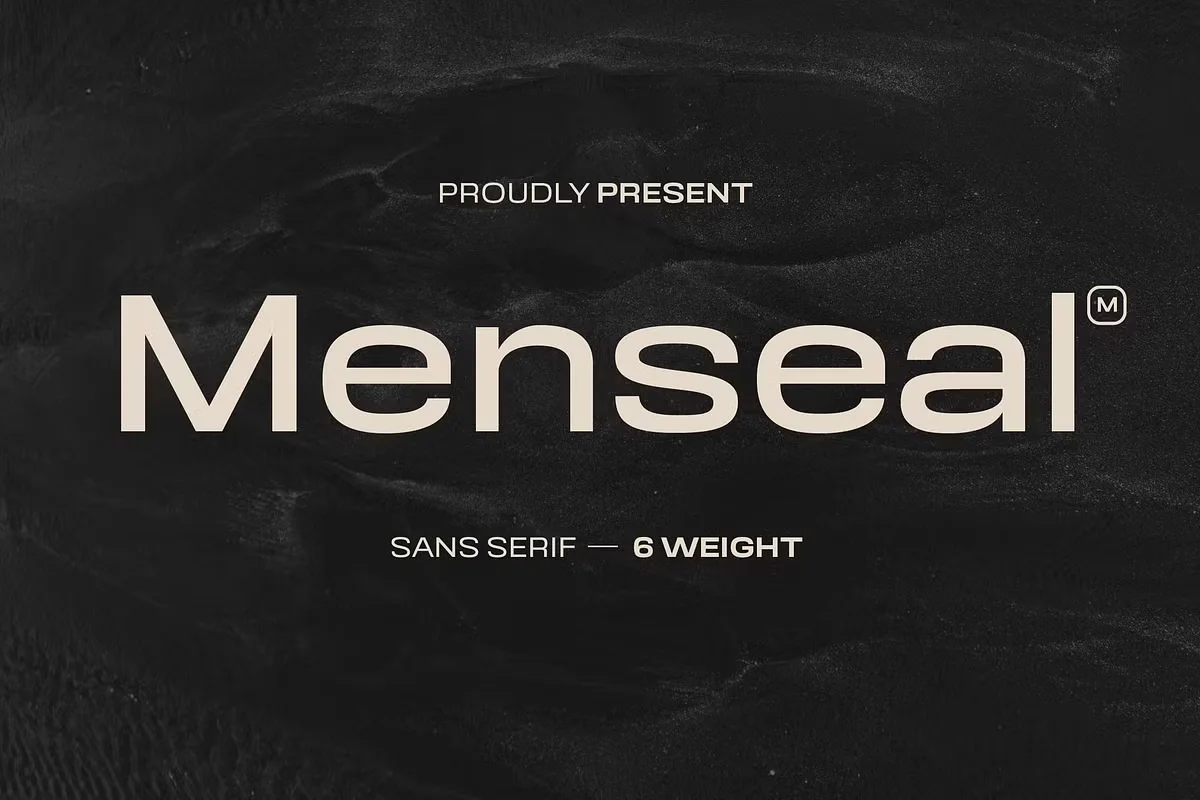
Menseal a sans-serif style font and merges elements of the future with a semi-square wide character, forming an enormous modern feel as well as size that’s just perfect for apparel and sportswear apparel. It conveys strength and precision in a plain but sleek way through its sharp lines, angles. The geometric construction has been precisely executed.
Every letter suits this contemporary moment well: whether digitized or printed media there is enough room to place text thanks to each stroke being made on purpose and place in line with the type. Menseal as a font makes a modern ornamental touch in fashion design, perfect for brands wishing to stand out.
It maintains the same consistent style throughout: enabling Brands express clear and effective Communication with target audiences.